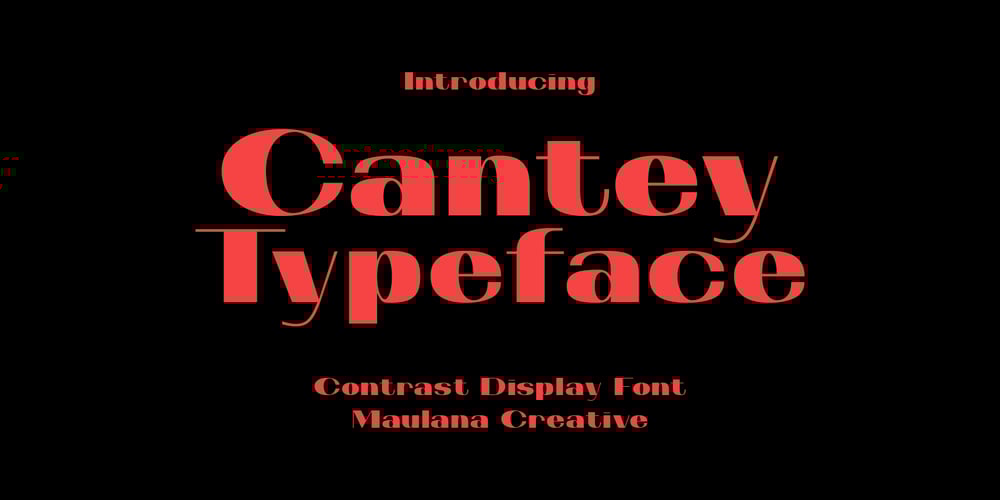
MC Cantey Font Family was designed by Gilang Maulana and published by Maulana Creative. MC Cantey contains 1 styles and family package options. Cantey is a wide sans display font. With high contrast stroke, fun character with a bit of ligatures and alternates. To give you an extra creative work. Cantey font support multilingual more than 100+ language. This font is good for logo design, Social media, Movie Titles, Books Titles, a short text even a long text letter and good for your secondary text font with script or serif. Make a stunning work with Cantey font. Cheers, Maulana Creative